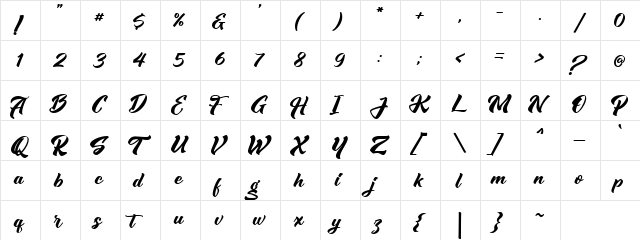
Sounding Script Regular
Design Context for Sounding Script Typeface
Sounding Script flows with the natural rhythm of handwritten lettering, making it ideal for designs that call for warmth and personal expression.
Font Pairing: Combine Sounding Script with a simple geometric sans for maximum contrast — the tension between flowing curves and clean structure is a classic typographic pairing.
Pro Tip: Pair Sounding Script with a clean sans-serif for supporting text. The contrast between fluid script and geometric structure creates an elegant typographic hierarchy.